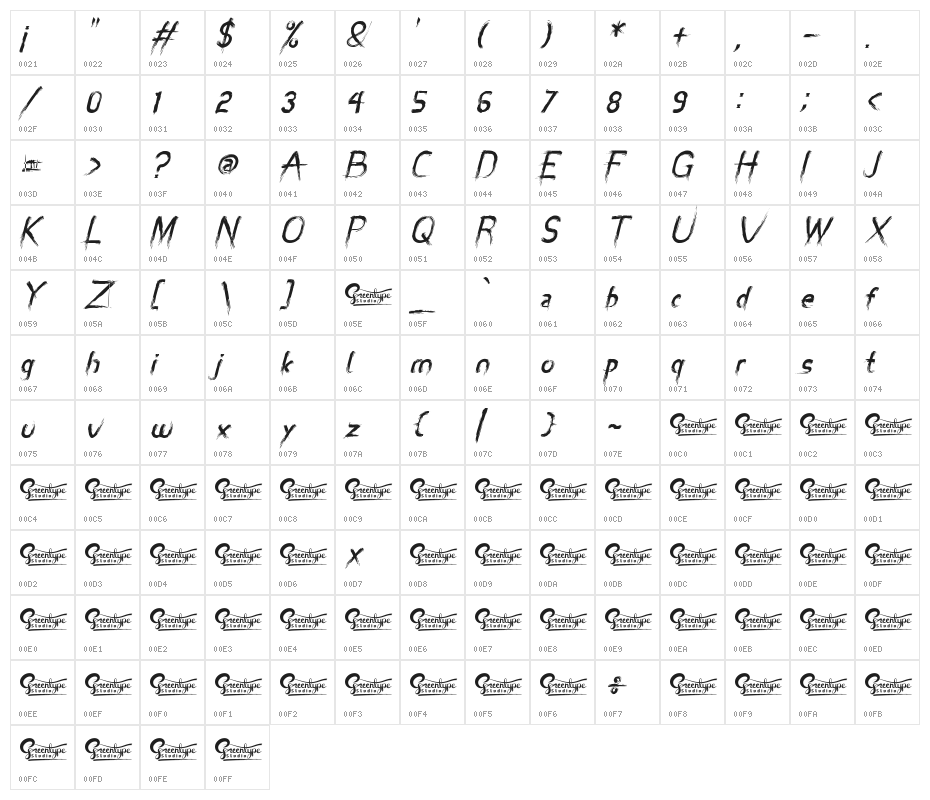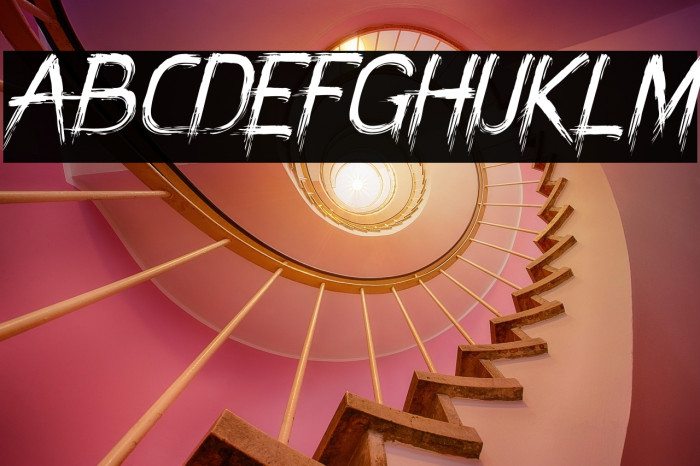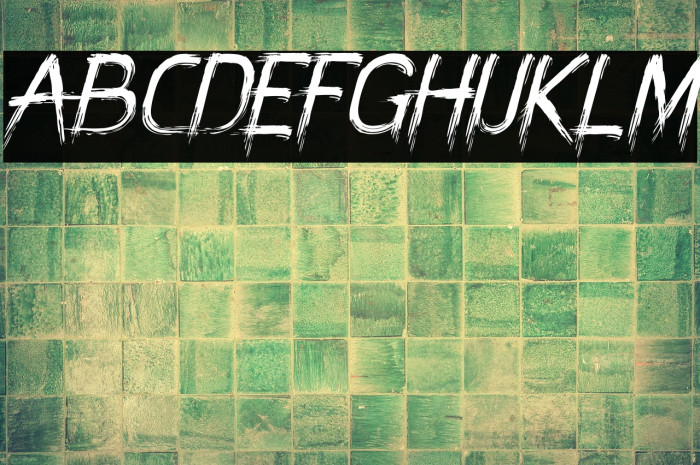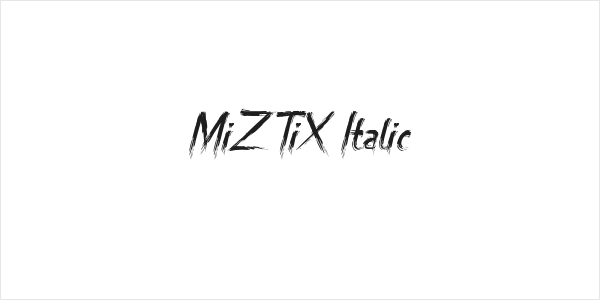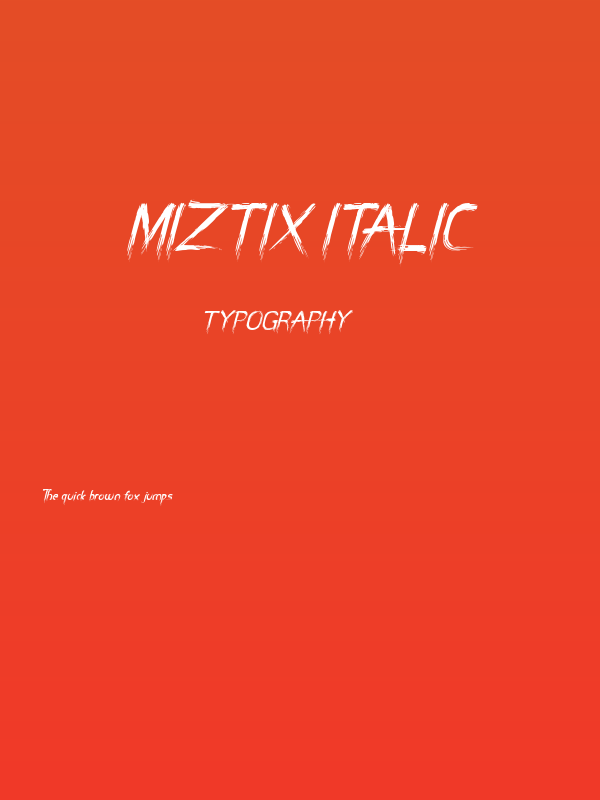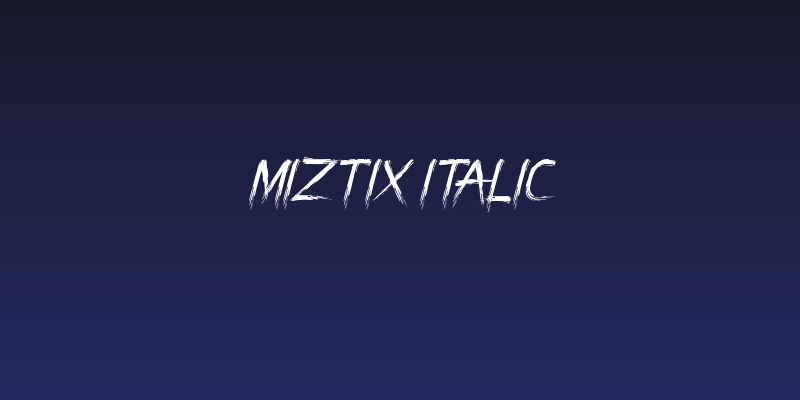
MiZTiX Italic Font
MiZTiX Italic Description
This font features a dynamic and edgy style, characterized by its brush-like strokes and italicized form. The letters appear as if they were painted with swift, bold movements, giving a sense of motion and energy. The uppercase and lowercase letters maintain a consistent slant, enhancing the italic effect. The numbers and special characters follow the same artistic brush pattern, creating a cohesive look throughout. The overall design is striking and modern, making it suitable for projects that require a bold statement.
| Proposed Projects | Ideal for music album covers, edgy branding, streetwear designs, and dynamic posters. |